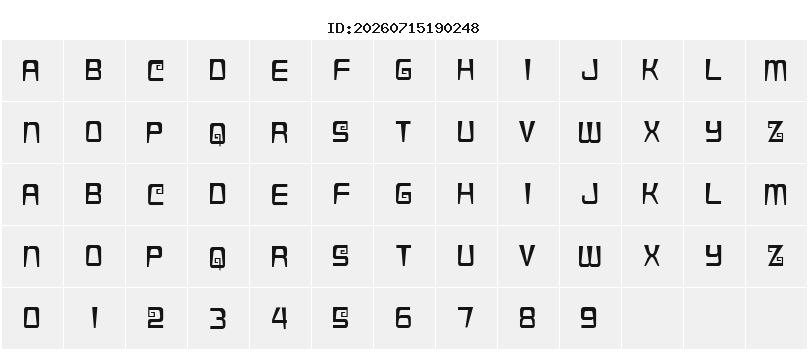
AztecaCondensed Preview
• Font Name: AztecaCondensed
• Full Font Name: AztecaCondensed-Regular
• PostScript Name: AztecaCondensed-Regular
• Character Count: 251
About AztecaCondensed.ttf
AztecaCondensed.ttf is a modern, elegant sans-serif font designed for ultimate readability and visual harmony. Perfect for branding, headlines, web design, and print materials.